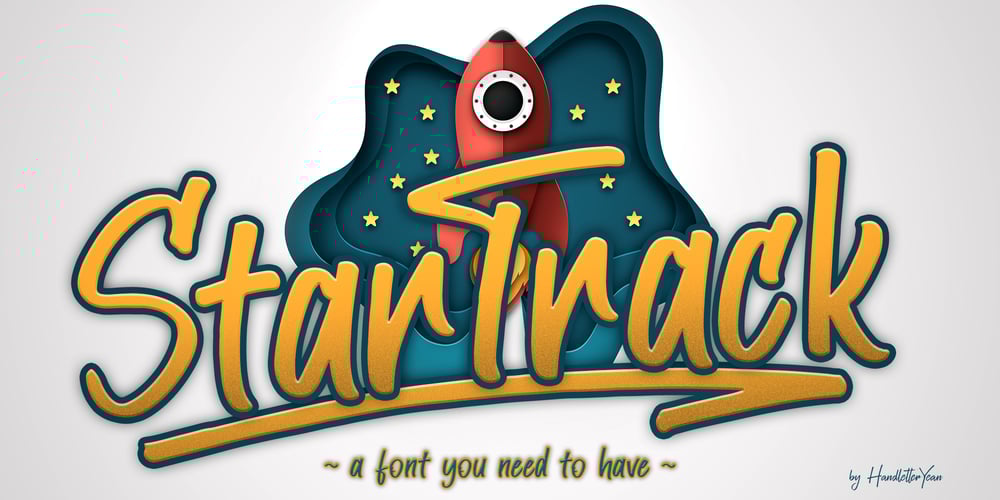
StarTrack Font Family was designed by Yean Aguste and published by HandletterYean. StarTrack contains 2 styles and family package options. Imagine you want an interesting font that fits in many designs yet looks neat and also eye-catching. Don’t worry anymore because it is answered. We present you with a special font named StarTrack. StarTrack is a must-have display font that enjoyable, pleasant, and elegant. It looks neat and suitable for your simple or complicated design. This font looks great for packaging, business cards, invitations, posters, labels and all kinds of your designs. Get this font into your collection now. Check out our font collection for more great and artistic fonts. Pick your most favorite font and use it as you like to reach your goals. What’s included: 1. StarTrack font file 2. This font completed with: standard glyph, ligatures, punctuation & symbols, underline, and italic font style 3. Works both on Mac & PC 4. Simple installation 5. Accessible in the Adobe Illustrator, Adobe Photoshop, Adobe InDesign, and CorelDraw 6. Support multilingual; ä ö ü Ä Ö Ü ß ¿ ¡ You will love this font!